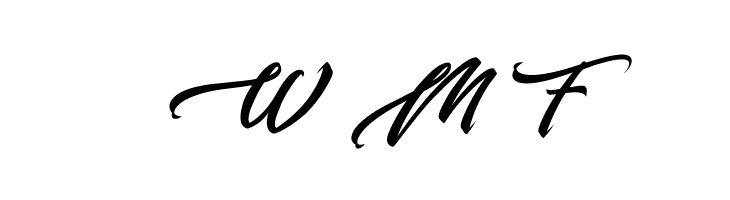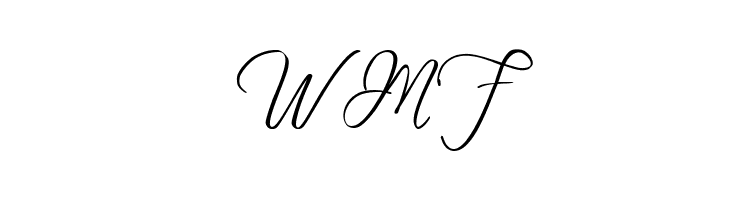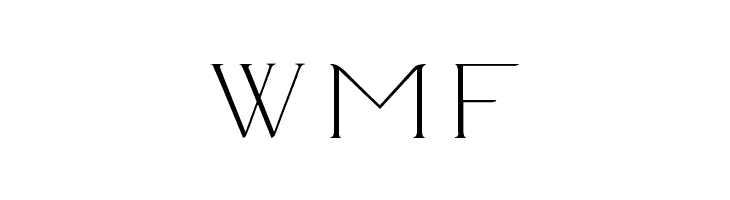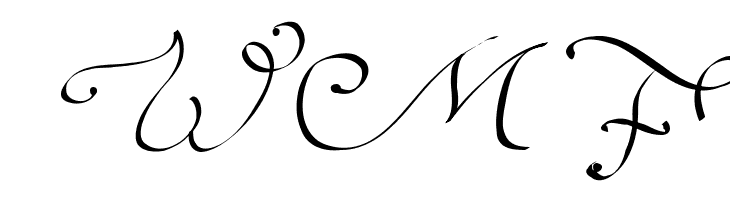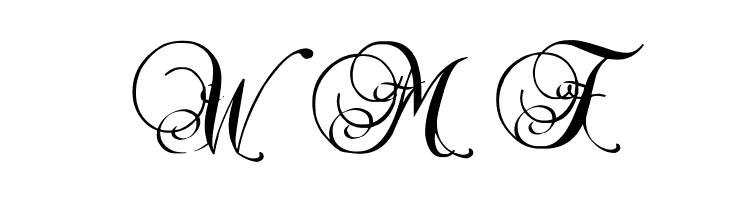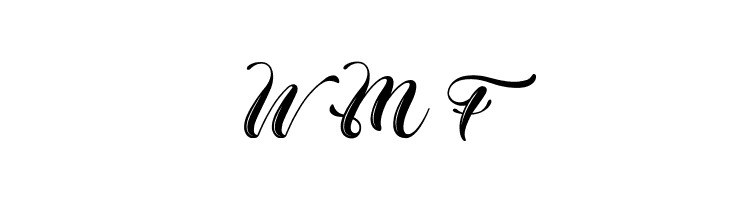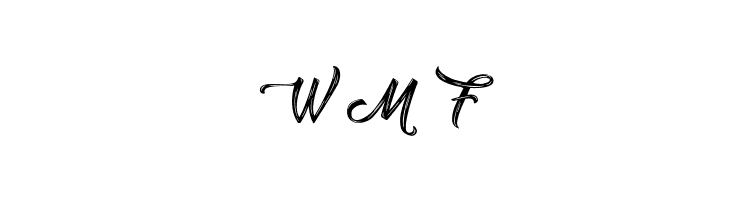
• Libertinage
• Fascinating Celestina
• Avanti Serif Regular
A sophisticated serif font with elegant swashes and classic styling.
• Persifal
An elegant script font with intricate swashes and high contrast strokes.
• Persifal Pen
An elegant, flowing script font with ornate swashes and high contrast.
• Precious
An elegant and ornate script font with intricate swashes and flowing letterforms.
• Annabel 1
A classic serif font with decorative swashes and intricate detailing.
• ChristmasinFinland
An elegant script font with ornate swashes and a calligraphic style.
• Walking in Sunlight
A decorative script font with elegant, flowing characters and ornate swashes.
• Amontillado
An elegant and sophisticated script font with intricate swashes and flourishes.